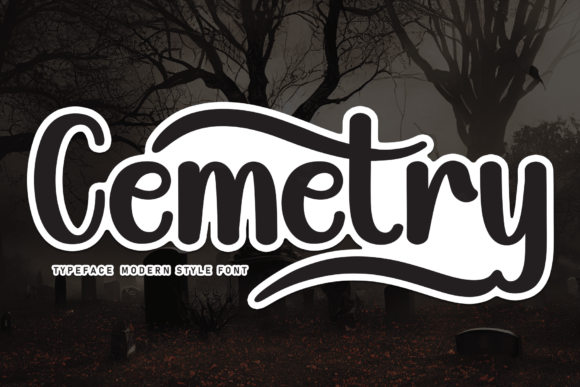
Journey into the world of captivating handwritten artistry with Cemetry Font, a beautiful script font family that exudes charm and playfulness. Created by the talented William Jhody, Cemetry Font is not just a font; it's an expression of pure joy and creativity.
Immerse yourself in the delightful curves and whimsical strokes of Cemetry Font. Each character dances across the page, carrying a sense of warmth and cheerfulness. This font is a perfect choice for those seeking a touch of magic in their designs. Whether you're creating wedding invitations, greeting cards, posters, or any project that calls for a personal touch, Cemetry Font will add a spark of enchantment.
Step into a world where fonts come alive, where every letter tells a story. Cemetry Font isn't merely a collection of characters; it's an invitation to unleash your imagination and create designs that speak to the heart. Its sweet and friendly demeanor makes it perfect for projects that demand a cheerful and inviting aesthetic.
With Cemetry Font, you'll discover a font that's both versatile and captivating. Its playful nature lends itself effortlessly to a wide range of design styles. From rustic and vintage to modern and minimalist, Cemetry Font seamlessly adapts, bringing a touch of whimsy to any project you undertake.
As you explore the endless possibilities of Cemetry Font, you'll find yourself drawn to its unique charm. It's a font that evokes nostalgia, reminding you of handwritten letters from a loved one or the joy of receiving a carefully crafted card. Cemetry Font captures the essence of heartfelt communication, making it an ideal choice for projects that aim to connect with audiences on a personal level.
Unlock the power of Cemetry Font and embark on a creative journey like no other. Let your designs bloom with personality, charm, and a touch of delightful playfulness. Immerse yourself in the world of Cemetry Font and discover the true magic of handwritten artistry.